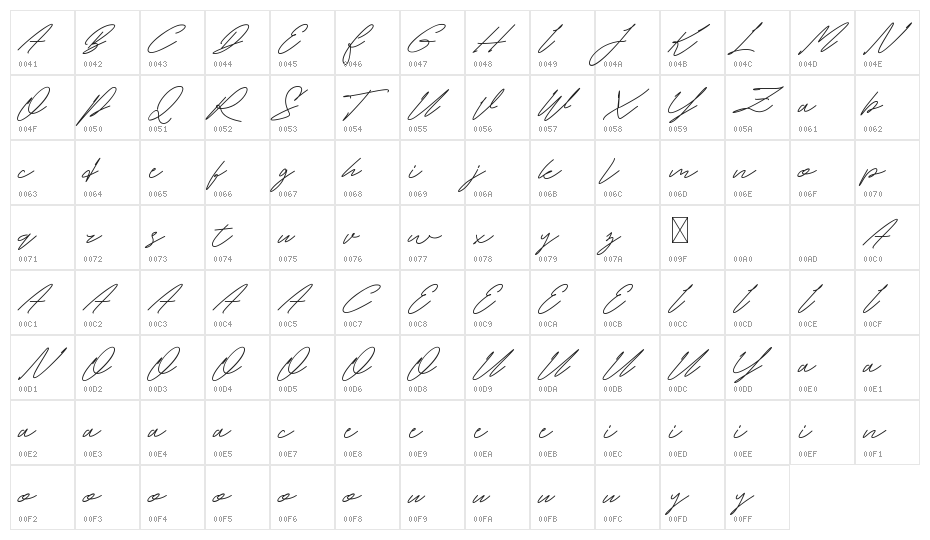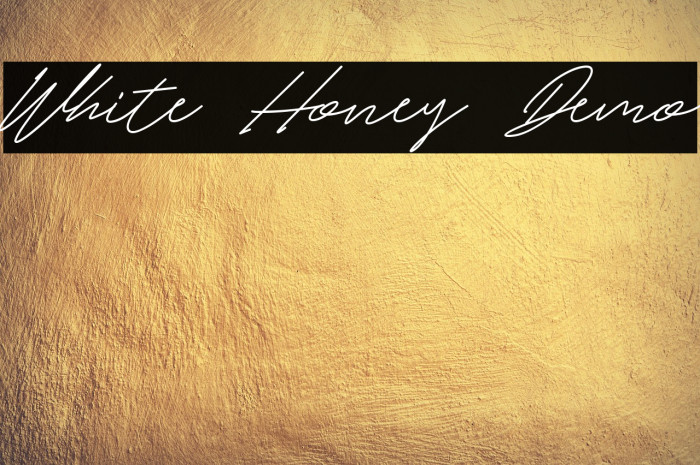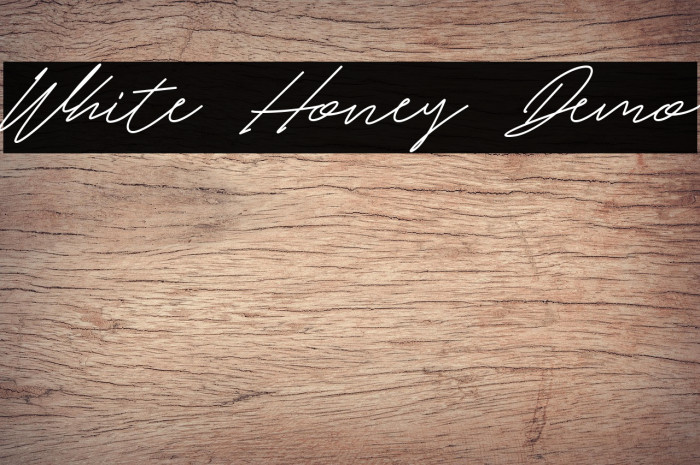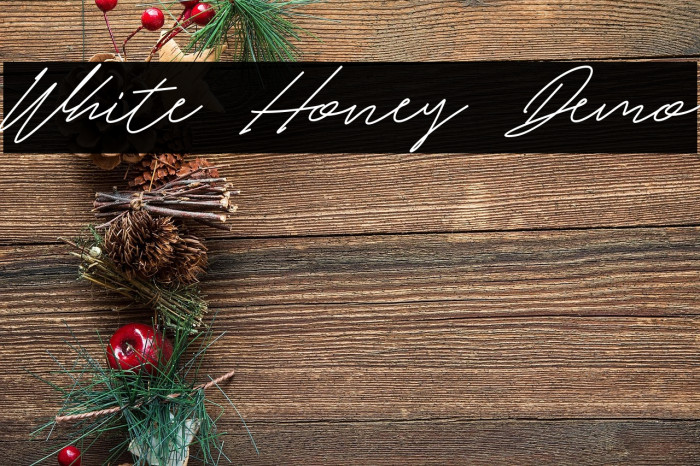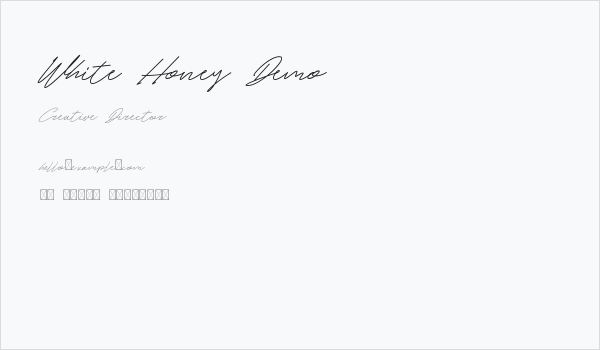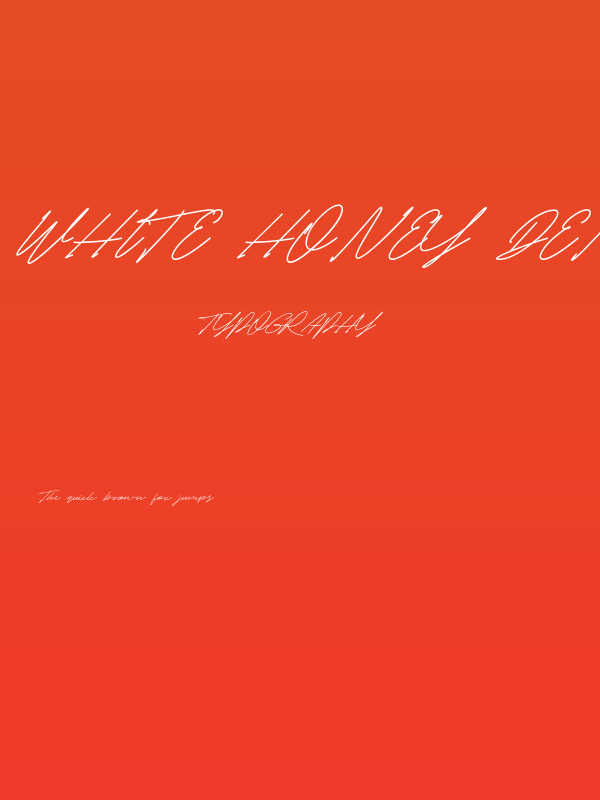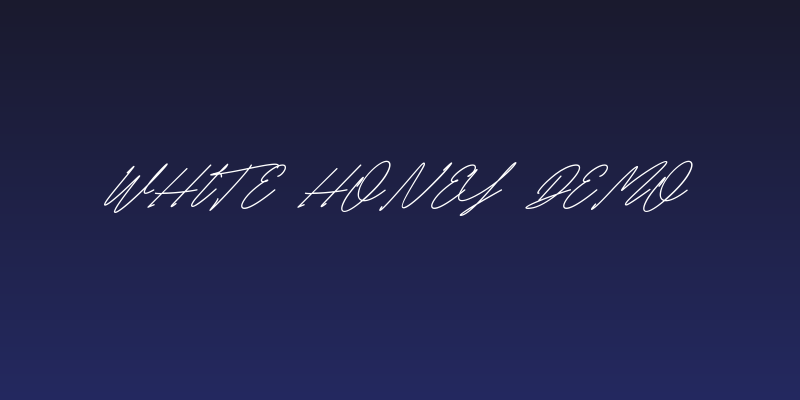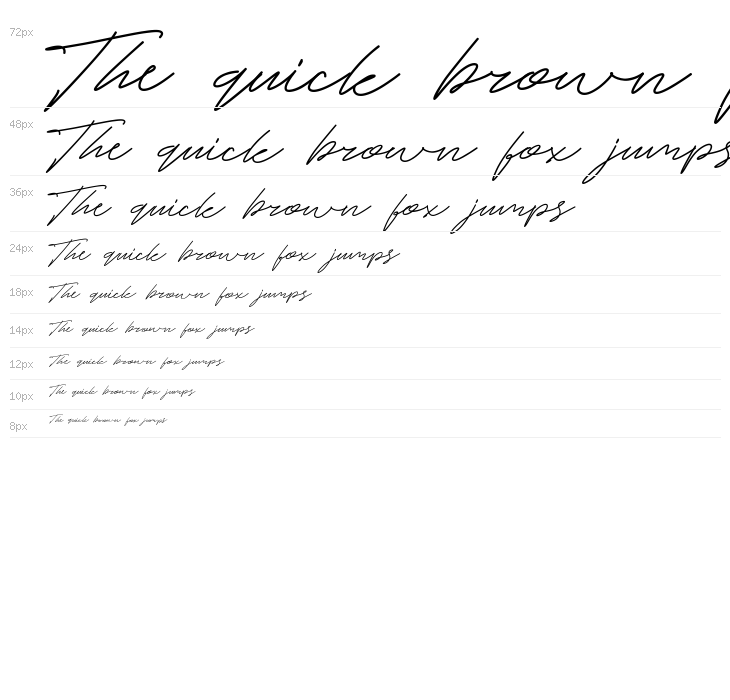
White Honey Demo Font
White Honey Demo Description
This font features an elegant, flowing script style that mimics natural handwriting. The letters are connected, creating a seamless and fluid appearance. The strokes are thin and delicate, with a consistent flow that adds a touch of sophistication and grace. The uppercase letters are slightly larger and more pronounced, while the lowercase letters maintain a consistent height, enhancing readability. The font's overall aesthetic is both modern and timeless, making it suitable for a variety of design applications. Its cursive nature adds a personal and intimate feel, ideal for projects that require a touch of elegance and class.
| Overall Style | Elegant, Modern |
| Use Case | Logos, Invitations, Personal branding |
| Proposed Projects | Wedding invitations, greeting cards, personal branding, elegant logos, and social media graphics. |